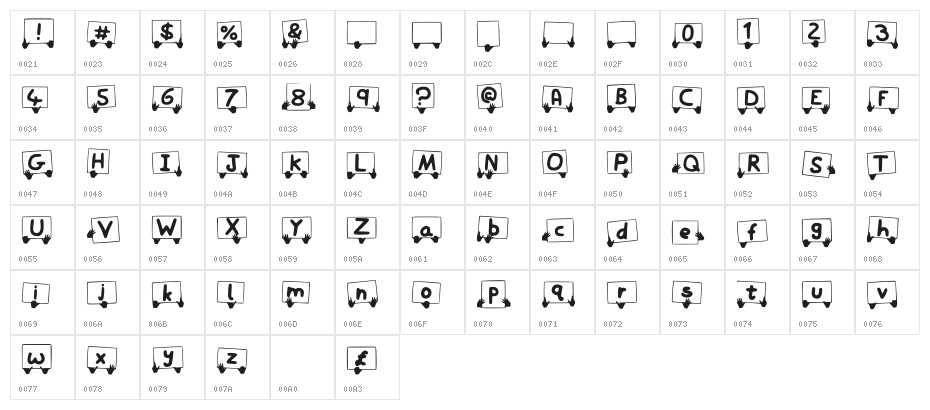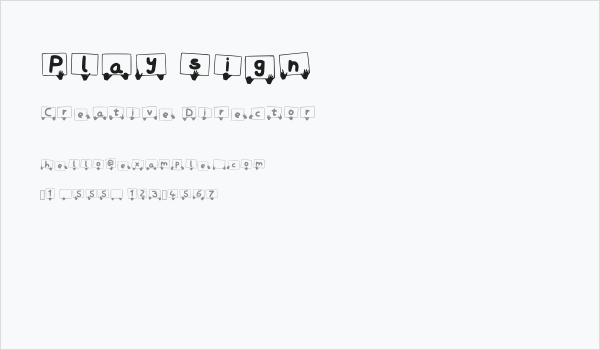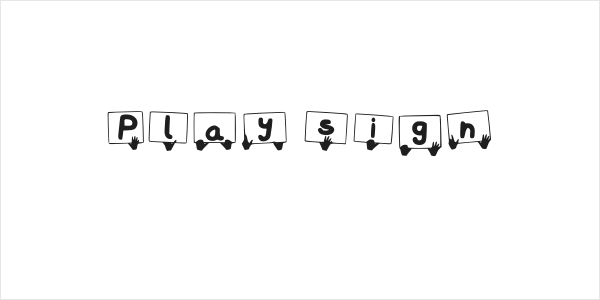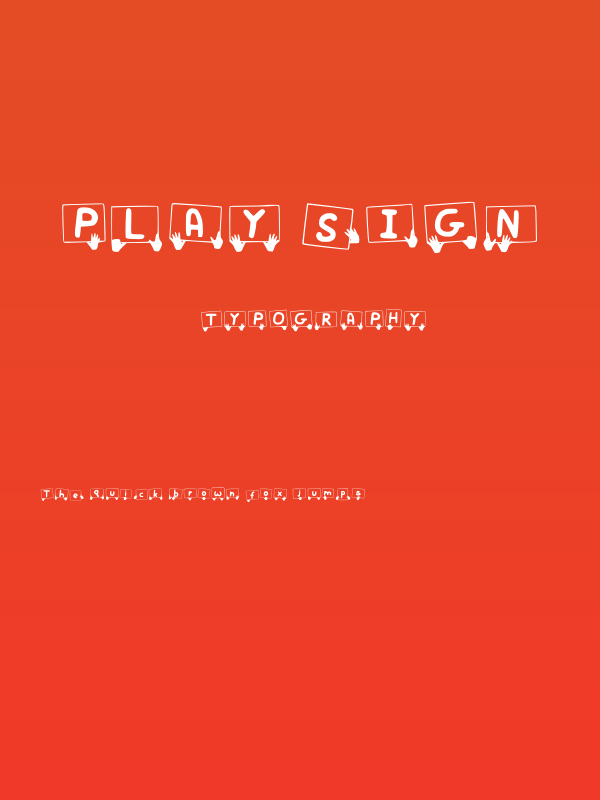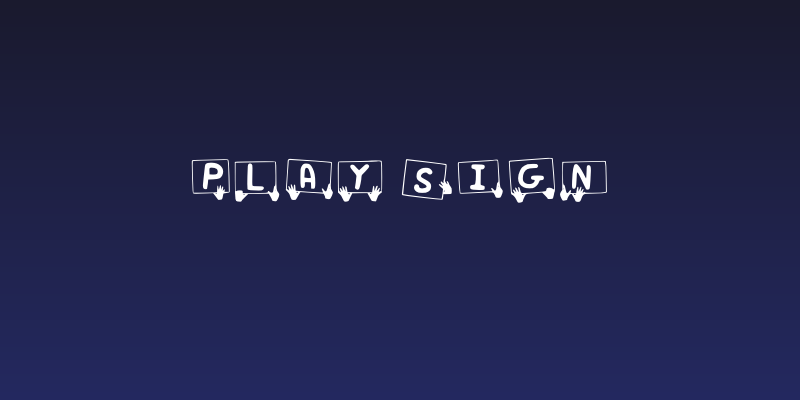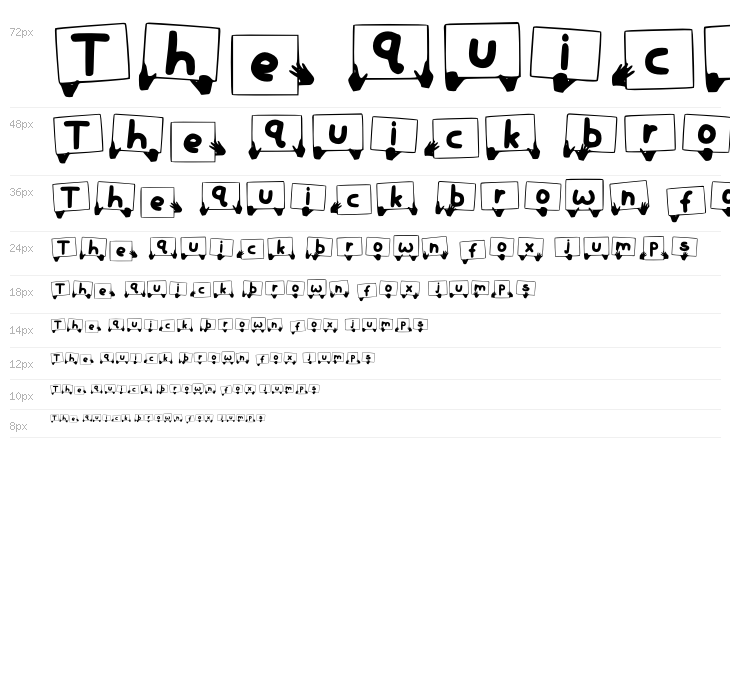
Play sign Font
Play sign Description
This playful and whimsical font features each character enclosed in a square, held by small, cartoonish hands and feet. The letters and numbers are bold and easy to read, with a slightly rounded and informal style that adds a sense of fun and creativity. The unique design of having each character supported by hands and feet gives it a lively and animated appearance, making it ideal for projects that aim to capture attention and convey a sense of joy and playfulness. The font's distinctiveness lies in its ability to transform ordinary text into a visual story, where each character seems to come alive, inviting interaction and engagement.
| Proposed Projects | Ideal for children's books, playful branding, party invitations, and educational materials. |